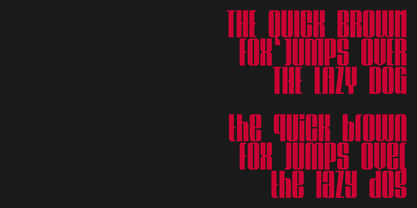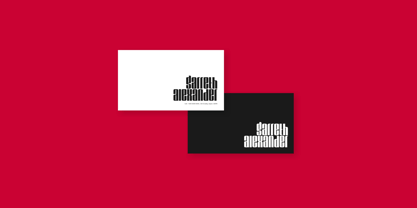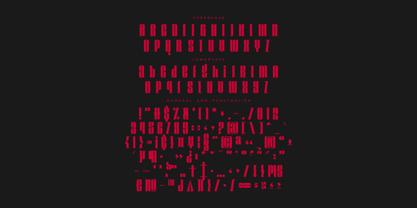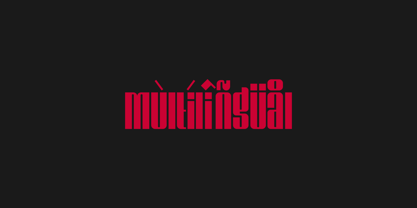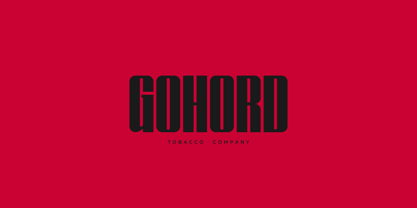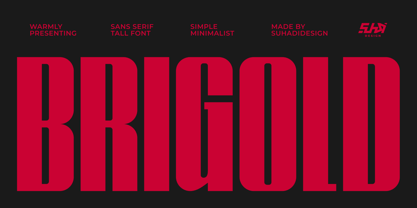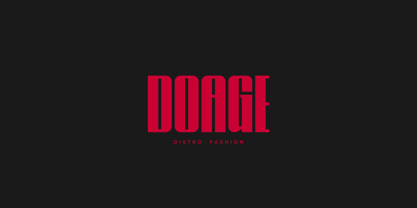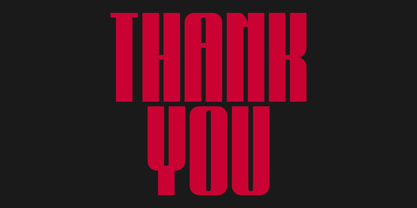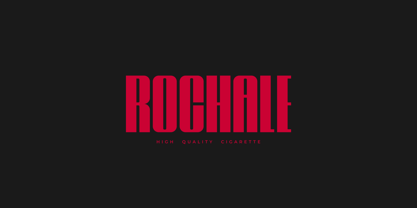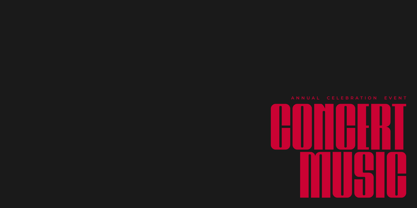
Brigold
Die Schriftfamilie Brigold wurde von ahmad suhadi entworfen und von suhadidesign veröffentlicht. Brigold enthält 1 Stile. Mehr über diese Familie
Brigold - Tall Font Hey ladies and gentlemen! In response to market demand, I created an attractive, tall, and bold sans serif font. So, I decided to create this sans serif font. Brigold is a stylish sans serif font with a distinct style and an elegant, thin thickness that has become a market favorite. We've kept this font elegant, classy, ​​modern, stylish, contemporary, and easy to use. Brigold is a great choice for magazines, book covers, shopping bags, packaging, logos, labels, fashion, posters, banners, bags, brand names, branding, quotes, and other projects. Brigold is here to take your designs to the next level. The Brigold font style will make you enjoy the design process and the cool designs it produces. Stay tuned for the latest information on font creation :) Font Features: • Capital Letters • Lowercase Letters • Multilingual Support • Numbers and Punctuation Thank you!